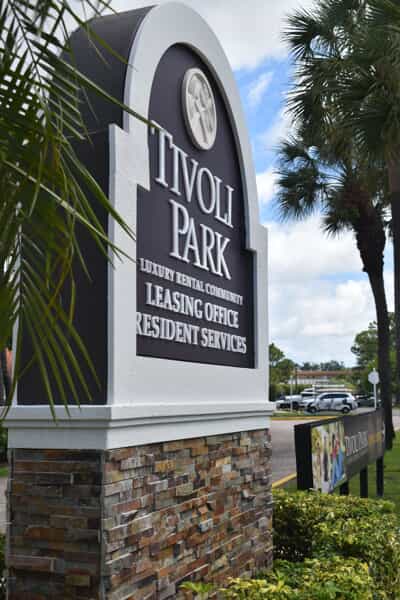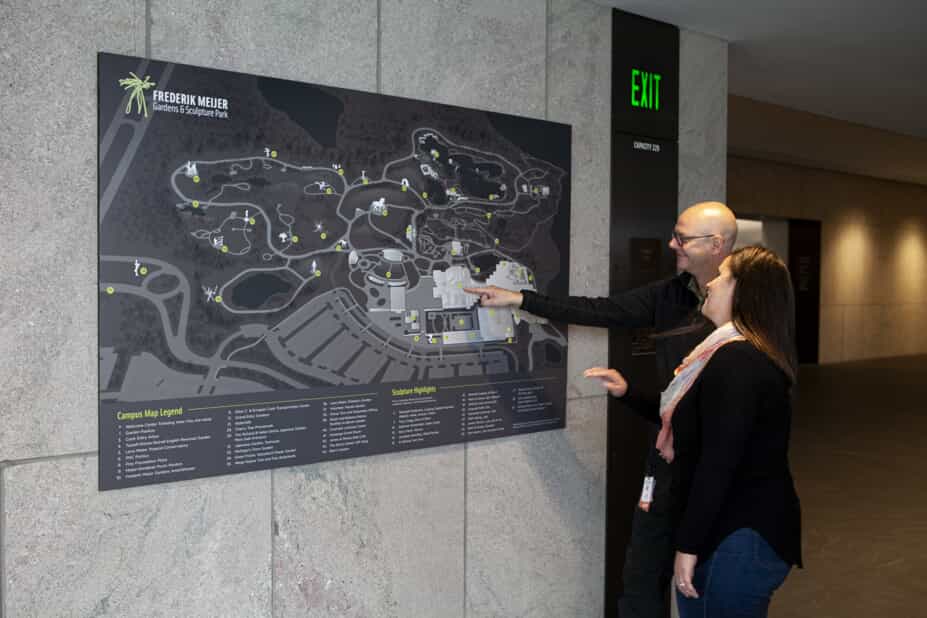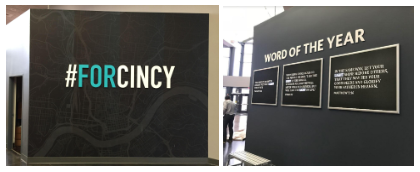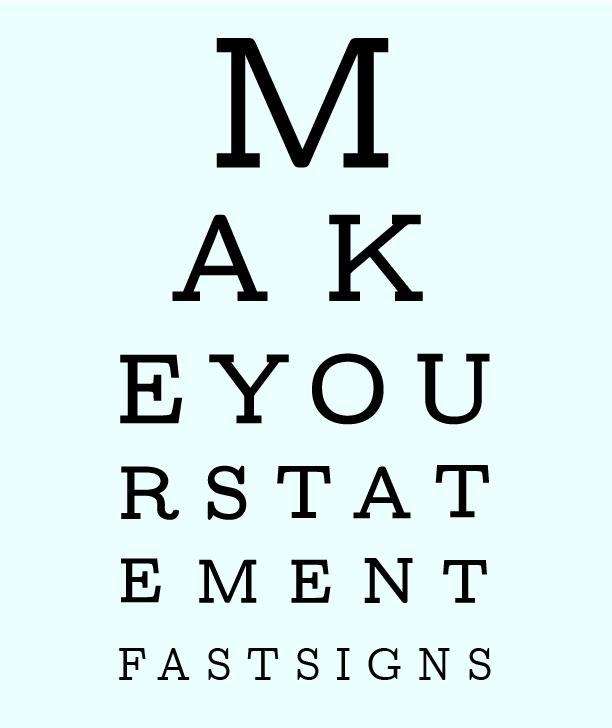
The Art of Attraction: Utilizing Color Trends in Modern Signs & Custom Visuals
Color trends have become popular over recent years, even outside of the official Pantone Color of the Year announcement. Paint company, Behr, recently announced their color of the year, Cracked Pepper, a soft yet bold black that makes a sophisticated statement, and even Martha Stewart chimed in with her thumbs-up on the color choice. While dark hues have often been taboo in the design world, design experts encourage people to heartily welcome the bold shade into their environments.
For marketers and business decision-makers who want to be “in the know,” what does the design trend around dark hues have to do with signs and graphics? Simply put, color along with contrast serve as building blocks to attract visual interest, always a top consideration when considering high-impact visual solutions.
Cracked Pepper's paint color offers an ideal background to which contrasting colors can be accentuated and will have the greatest visibility. Admittedly, many of us have shied away from using dark colors or black in our business environments, however, it can be a way to embrace the trend while setting the stage for custom visuals and signage to really pop out, enhancing visibility, and designing custom visuals.
The concept of contrast to enhance visibility and attention isn’t new, and it’s not so far-fetched to incorporate bold colors into an environment or signage. Consider how nature exploits high-contrasting colors to stand out or communicate a message. The high-contrasted colors of yellow and black we see on bees serve as both a defense mechanism–or sign–to predators to stand back. This coloration is highly visible and easily recognized, even from a distance. Let’s not forget about the black and white of a zebra, the red of a rose next to the green of a petaled stem, and even blue and orange coming together in sunsets, birds, and fish. These contrasts easily capture the eye because they are both striking and beautiful. ​
If someone making decisions about signage, visuals, and graphics is thinking about leaning toward darker colors such as Cracked Pepper, what are the upsides?
Defines Shape ​
Contrast creates visual interest and is carried out through elements from color to texture and size to shape. Think of it like the old adage - Opposites attract. Differences give definitions, but remembering to find balance is important. A healthy amount of dark or light space throughout a visual design provides viewers with the necessary breathing room. This breath of fresh “space” can better ensure the message is more easily seen or understood, not choked out by too many elements competing for attention.
Creates Visual Acuity
Well-planned and contrasted colors across any graphic create visual acuity, the sharpness of what you see from a distance. Remember that chart that tests visual acuity when you visit the optometrist? (It’s called the Snellen test.)
The contrast of the dark letters on the light background of that chart stands out. Contrast is also a tool to help increase visual acuity and in turn, increase visibility. For signs and graphics, the goal is to create something that is easy to read. Why? Because people probably won’t take the time if it’s difficult. In fact, a lack of contrast can possibly lead to a missed opportunity to grab a potential customer.
When working with darker background colors, remember to keep the text lighter in hue. In fact, neon can be a great addition to make a dark wall really pop! Bold, chunkier fonts stand out better on a dark background, and incorporating texture, such as dimensional letters, allows for enhanced visual interest. When utilizing darker hues, it’s also important to use the color sparingly and often concentrated in one area.
Rivers Crossing Church
Draws and Focuses the Eye​
To transform one area into a focal point, contrast plays a defining role. High contrast leads to high visibility. Our eyes are naturally drawn to the visibility of something heightened through it. ​
Whether it’s a piece of art against a dark wall or a white logo on oversized silos, contrast allows designers the ability to direct attention. Not only does it serve to grab customers' eyeballs, but it can also lead them to the most important information you want them to know.
When considering ways to get your brand noticed, dark colors can provide a backdrop that creates better contrast.​​